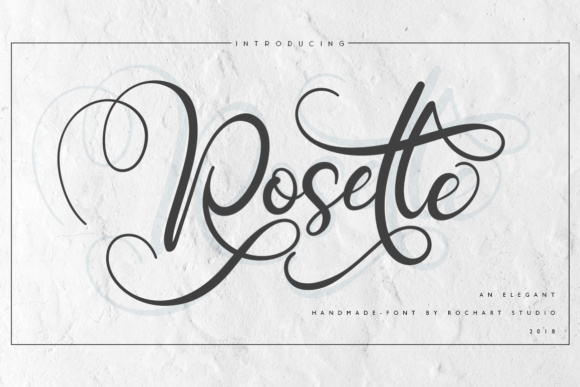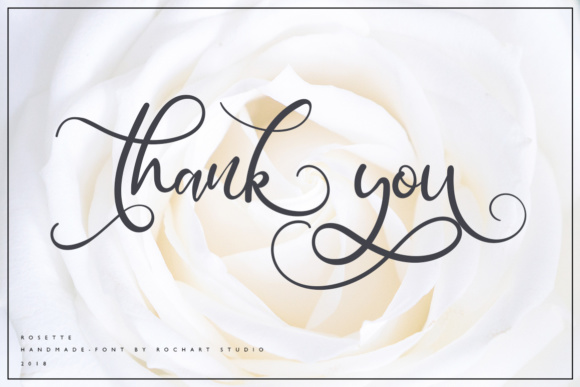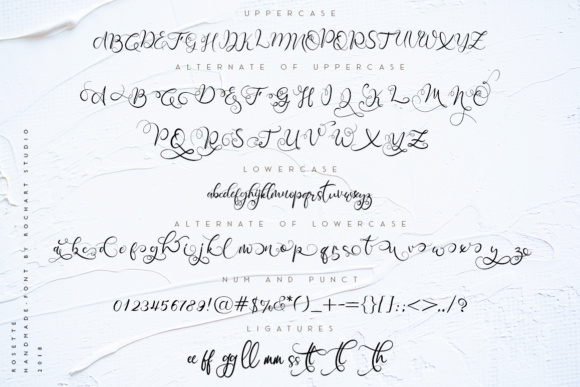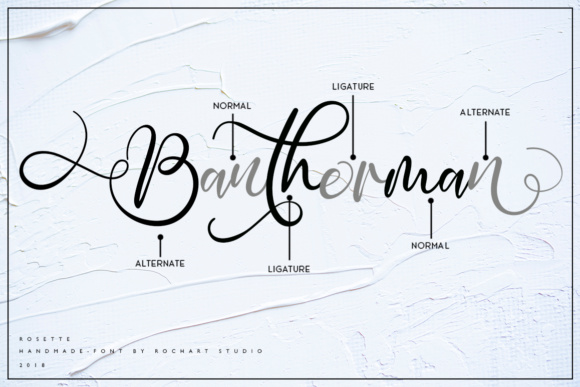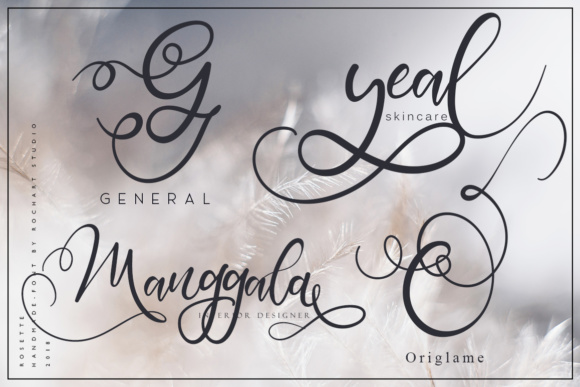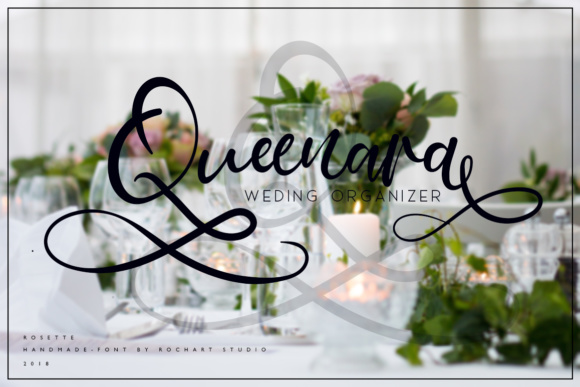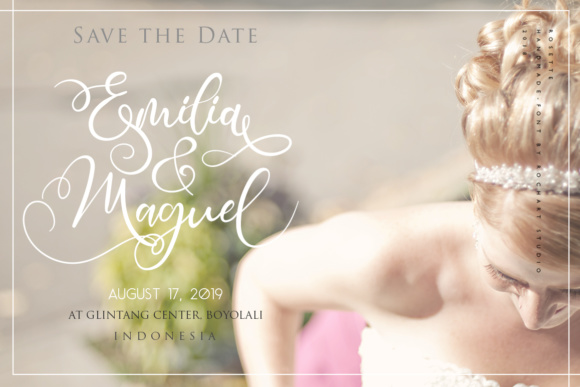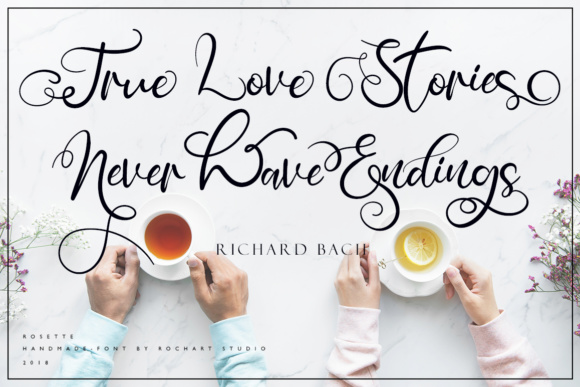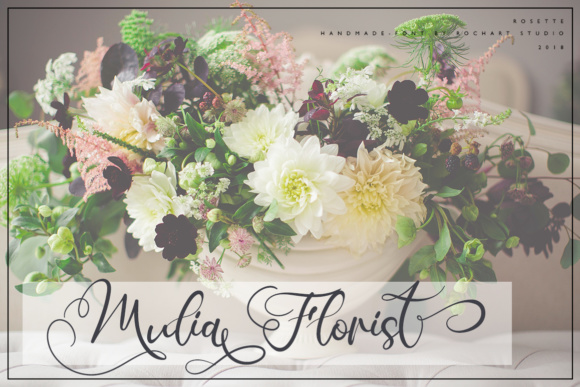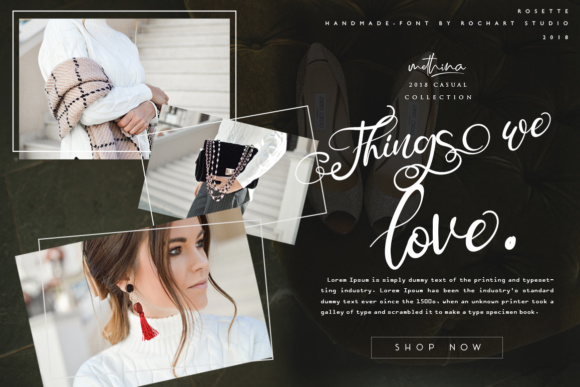
Rosette Font
About Rosette Font
The Rosette is an elegant typeface with a modern touch. It’s perfect for every design that needs to look upscale and chic!